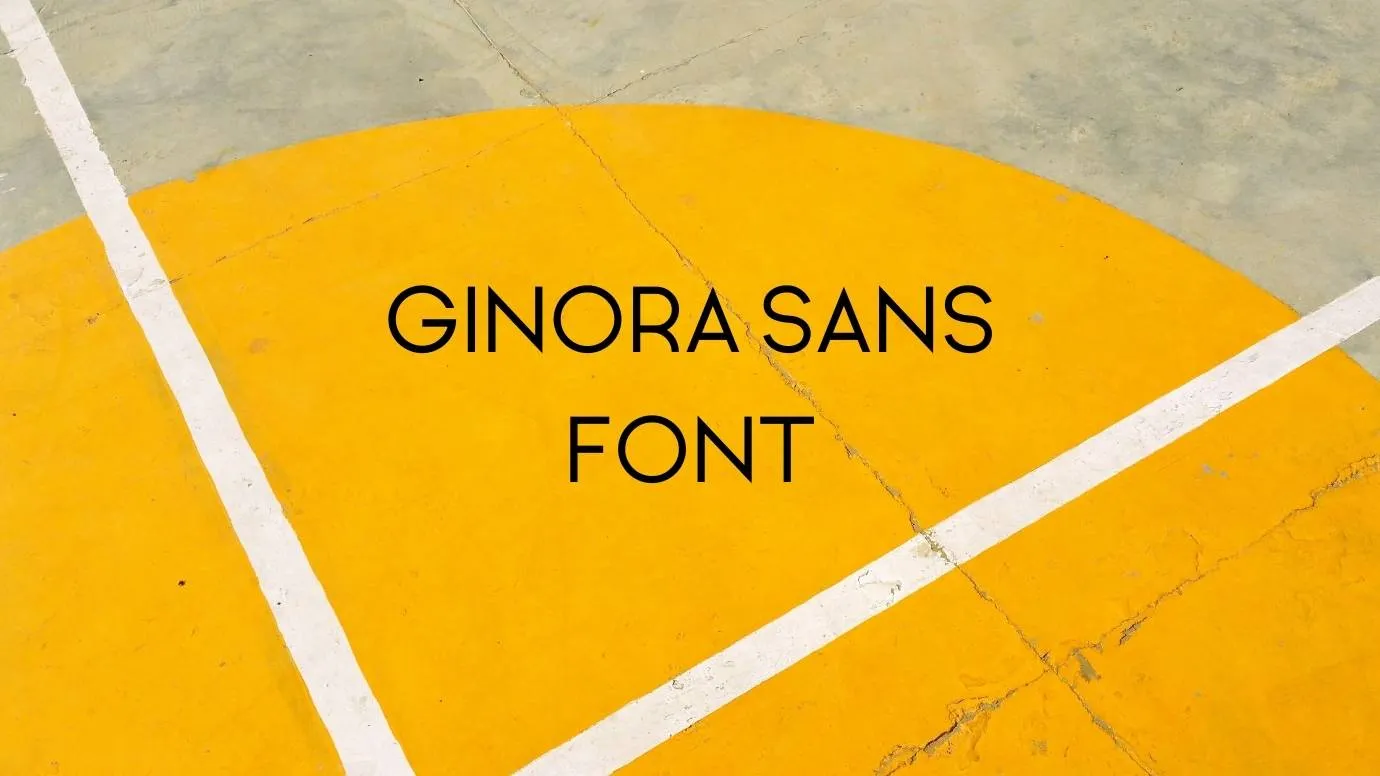
Ginora Sans Font Family was designed by Matheus Gomes. This is a specialist designer that belongs to Brazil. It comes in 8 different styles and more than 250 characters including uppercase, lowercase, and punctuations.
This font provides straight strokes and rounded corners. In numerous projects, it is most suitable for utilization. This typeface support many languages such as Italian, Portugese, Spanisch, Zulu, Albanian, Dutch, English, and many more.
Ginora Sans Font
NameGinora Sans Font
DesignerMatheus Gomes
TypeSans-serif